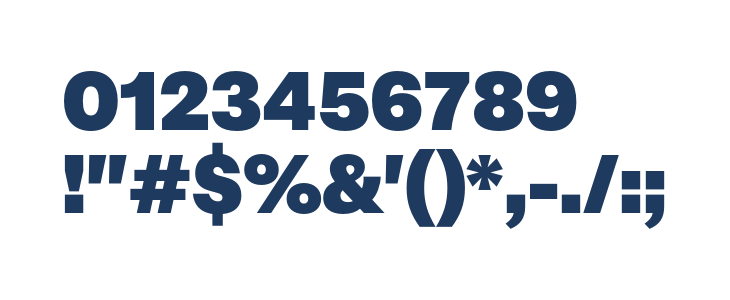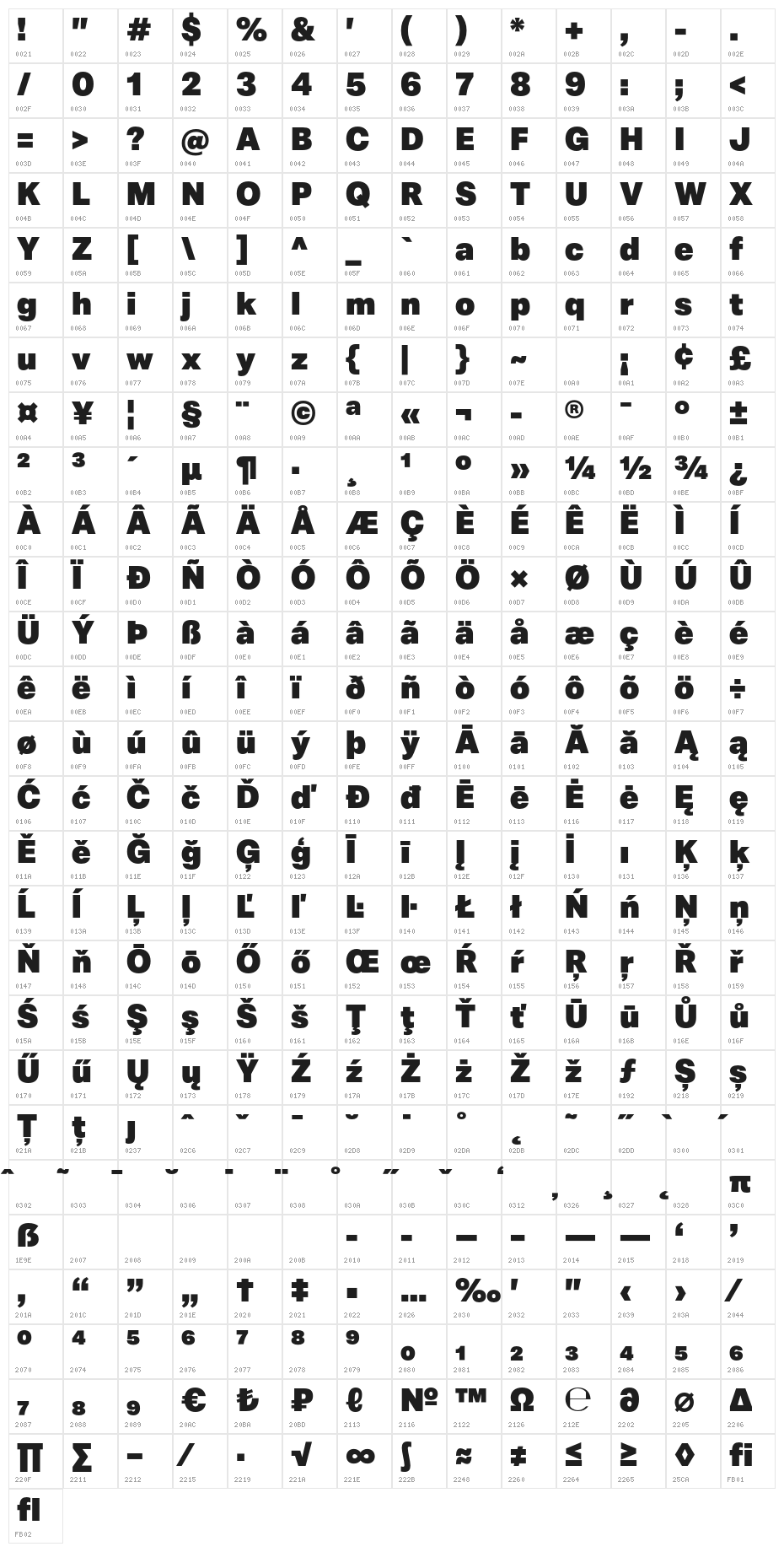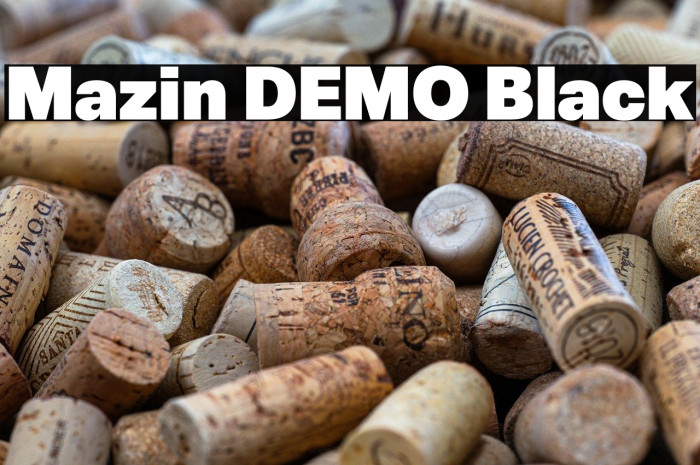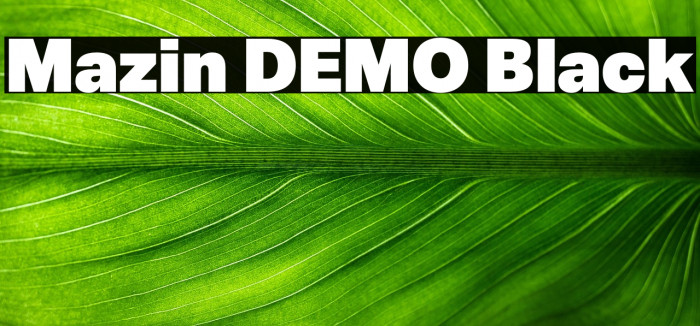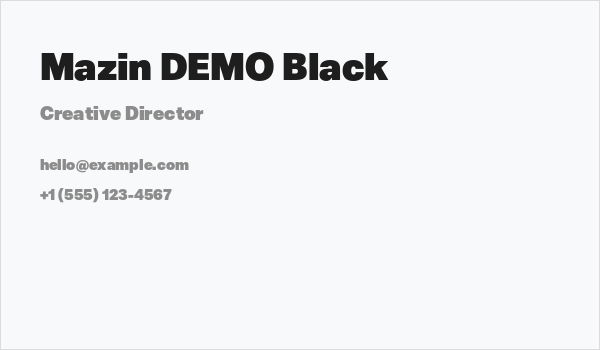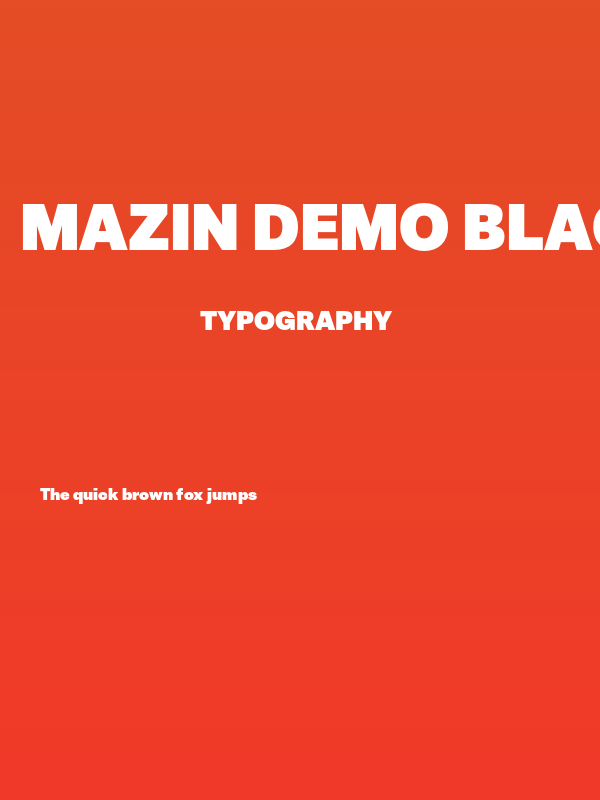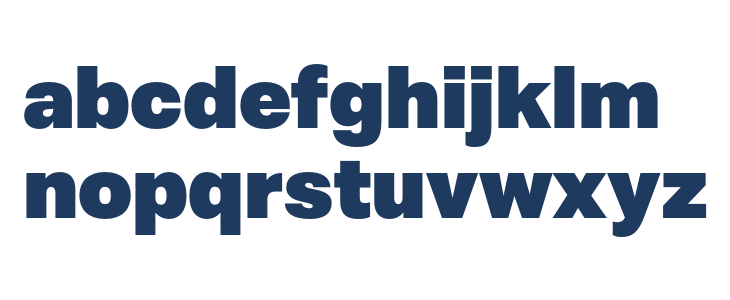
Mazin DEMO Black Font
Mazin DEMO Black Description
This font features a bold and impactful design, characterized by thick, uniform strokes that convey strength and clarity. The uppercase and lowercase letters maintain a consistent weight, ensuring readability and a commanding presence. The numerals and special characters are equally robust, making them stand out in any context. Its geometric shapes and clean lines give it a modern and professional appearance, suitable for various design needs.
| Proposed Projects | Ideal for branding, headlines, posters, and any design requiring a strong visual impact. |